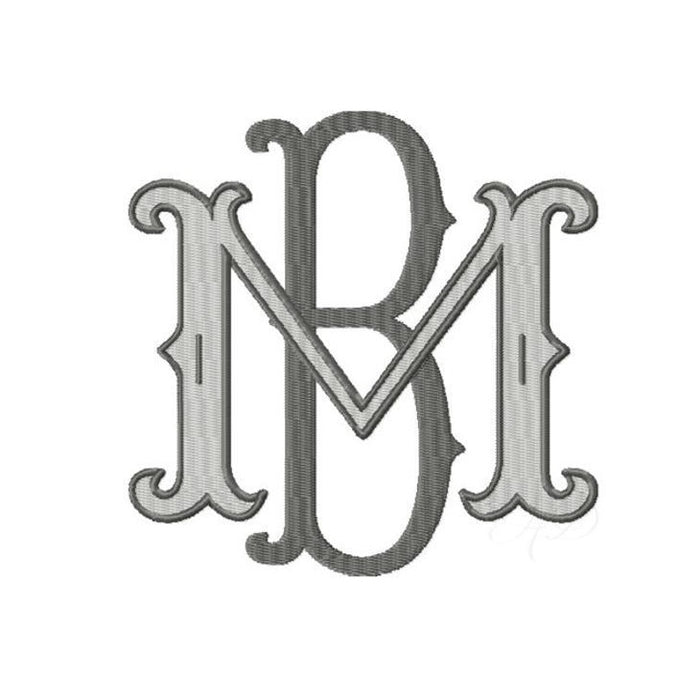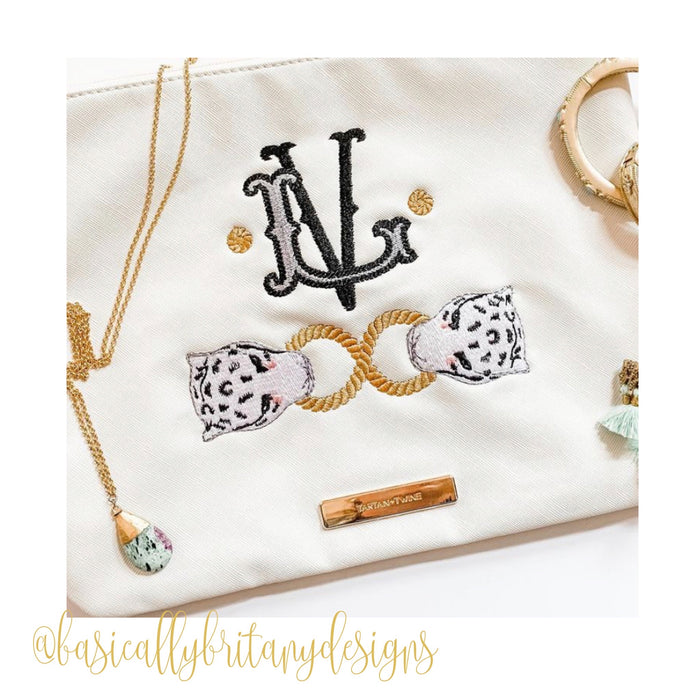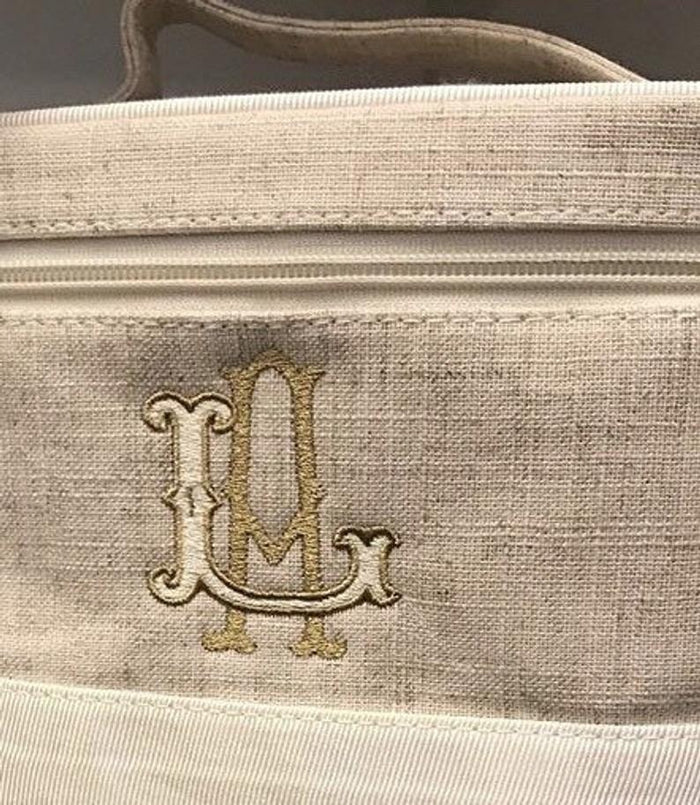
Barrett Fill Satin Embroidery Font
The Barrett Fill Satin Embroidery Font package is designed to elevate your crafting projects with its elegant and customizable monogram options. This set includes four sizes—2.5", 3", 3.5", and 4"—featuring 52 letters in each size. Perfect for creating beautiful two-letter monograms, the font combines intricate embroidery fill with contrasting outline stitches for standout designs.